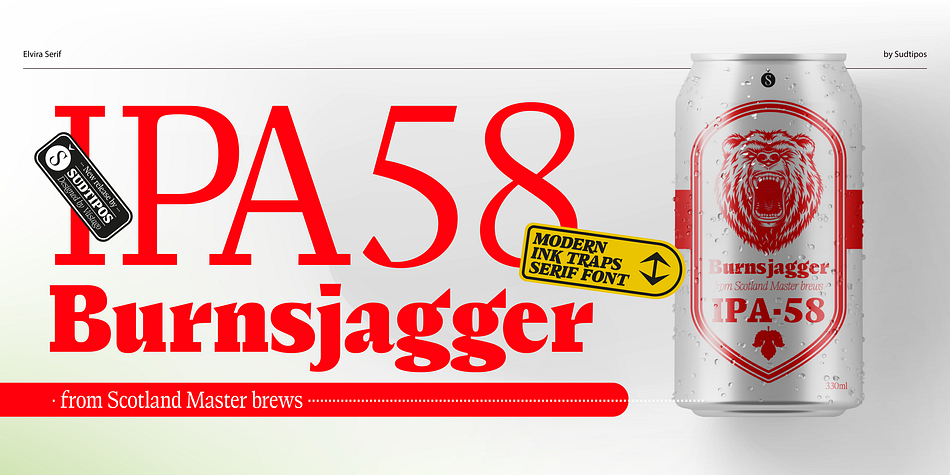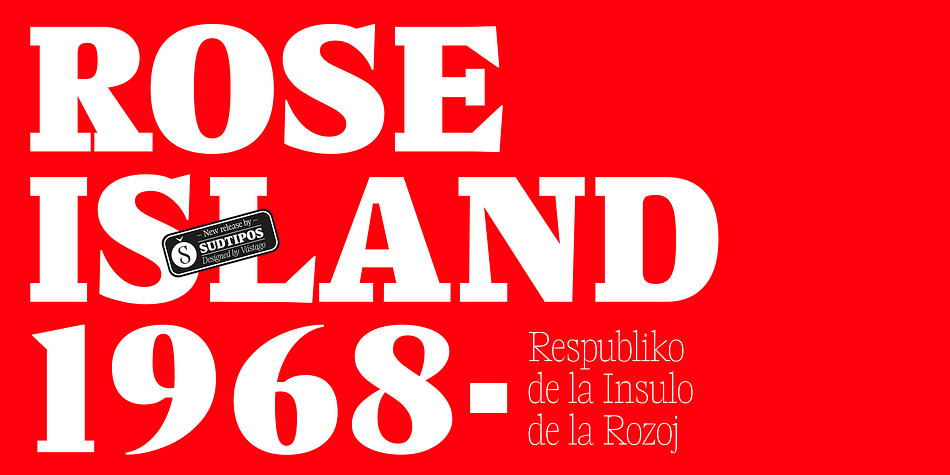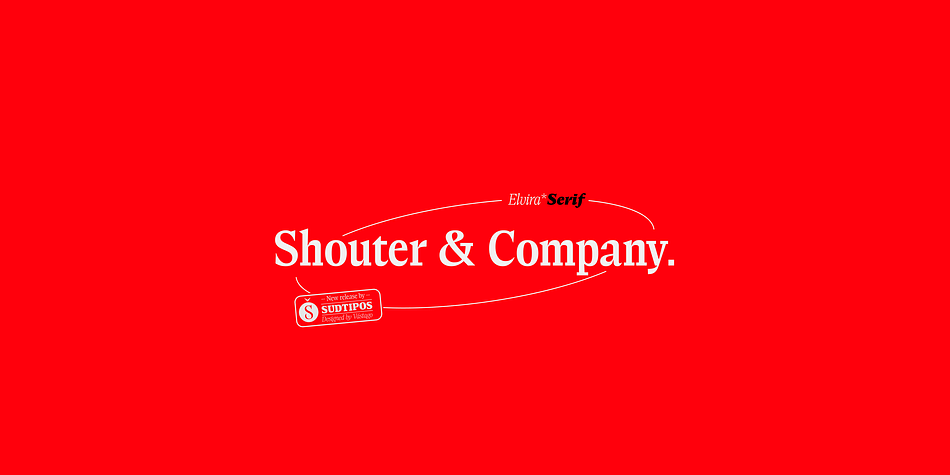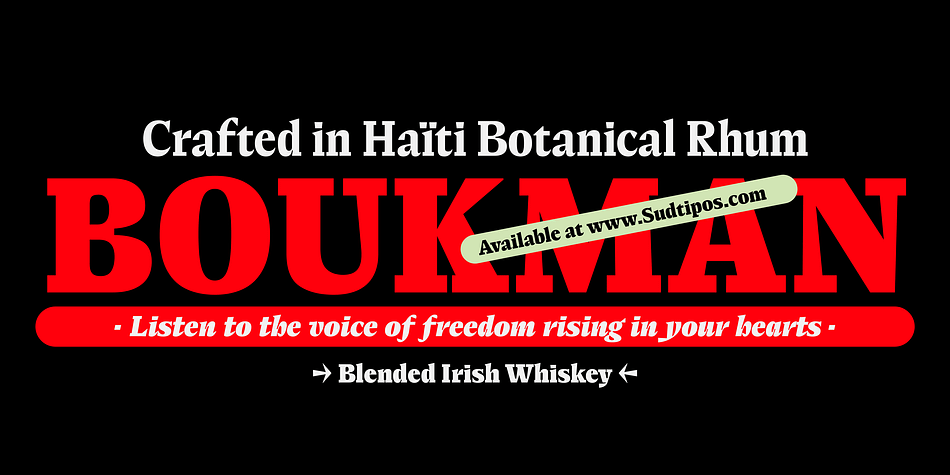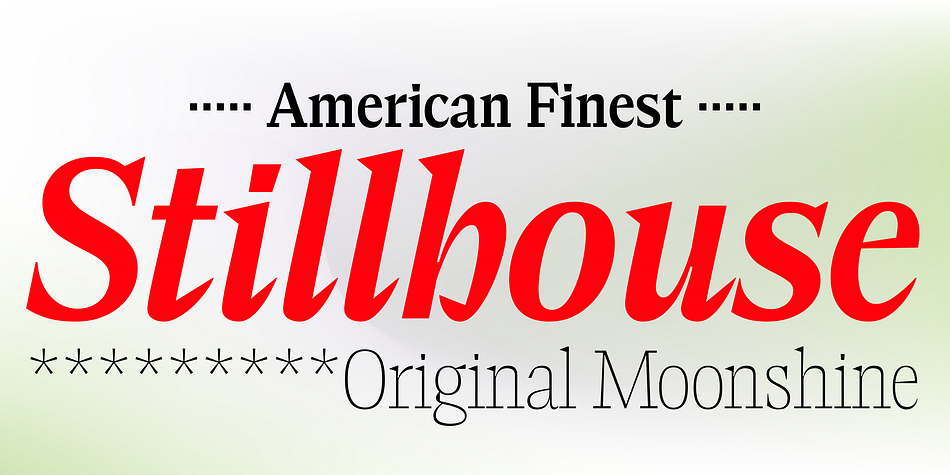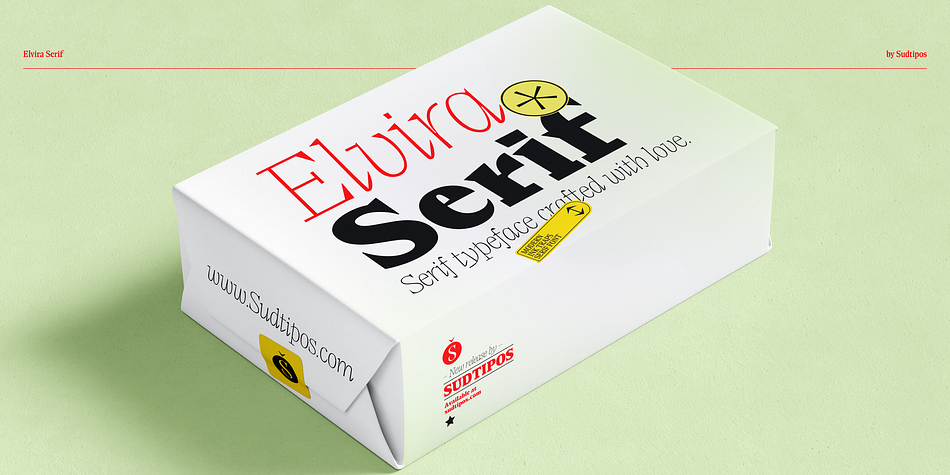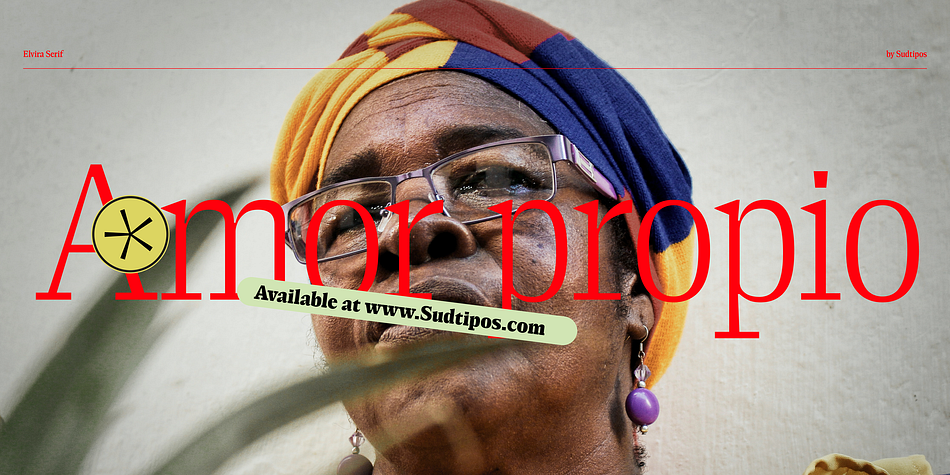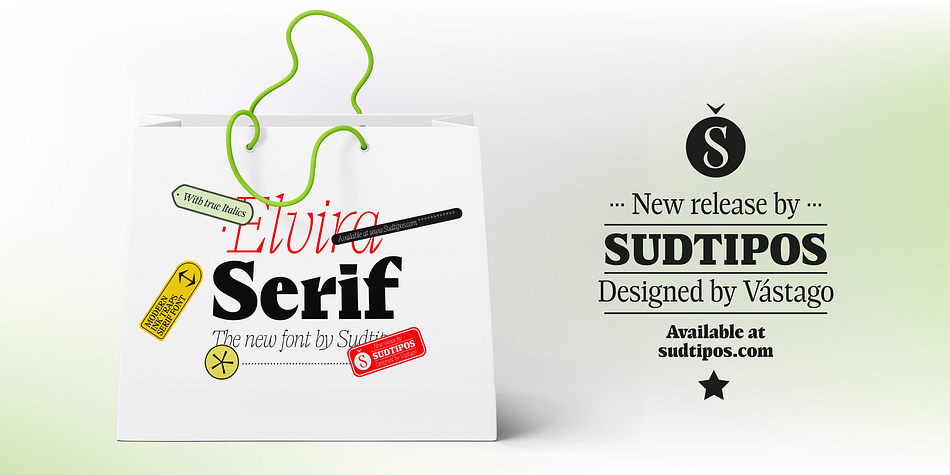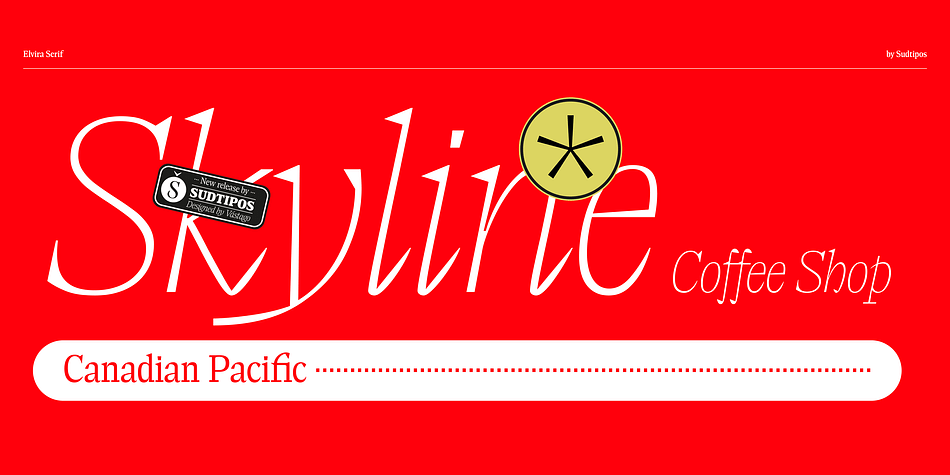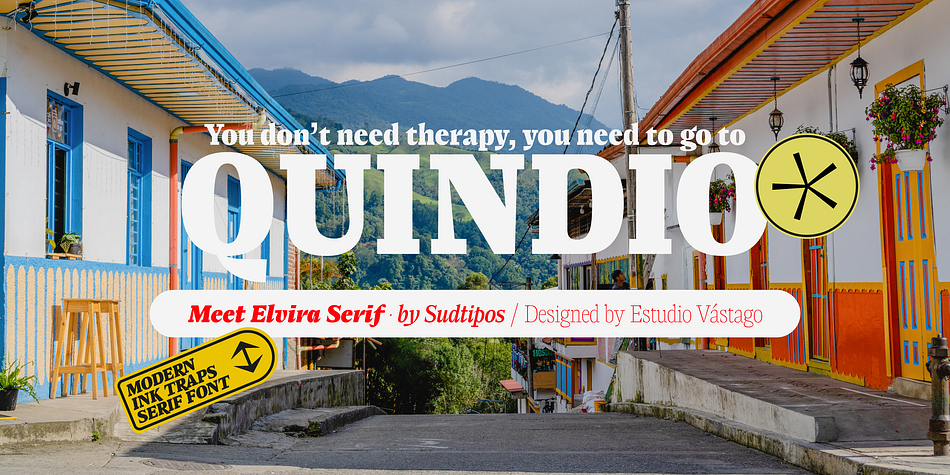
Elvira Serif
Designed by Andrés Ramírez, Elvira Serif is a serif font family. This typeface has twenty styles and was published by Sudtipos.
Elvira Serif is a typeface family that proposes to make the use of display serifs a little more fun, including in its anatomy some sharp points, ink traps implanted in some glyphs, and the formality of a traditional serif. All of these elements make Elvira Serif a great option that balances the contemporary with traditional touches.
Elvira Serif has 9 weights, as well as true italics, which gives it dimension and versatility in its use. It can be used for a wide variety of purposes: it works well on the web, headlines and especially designed for book publishing at small sizes.
Elvira Serif has the ability to look robust and imposing in its black weight, and subtle and elegant in its light weight. Enjoy it, it is made with a lot of passion and fun by Sudtipos and Vástago.